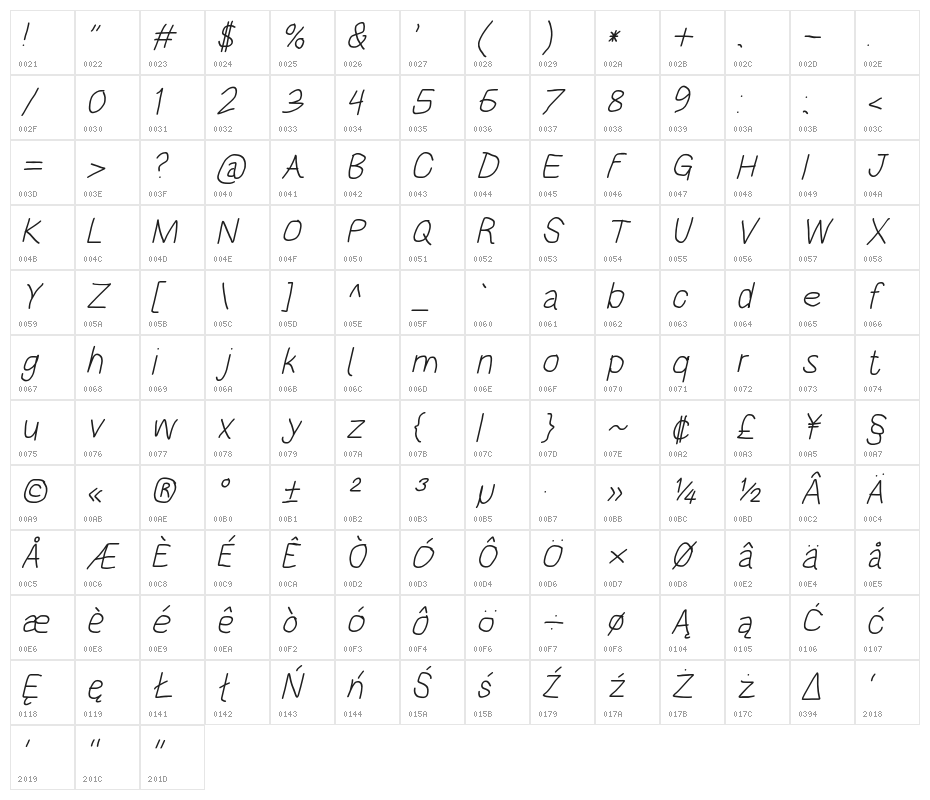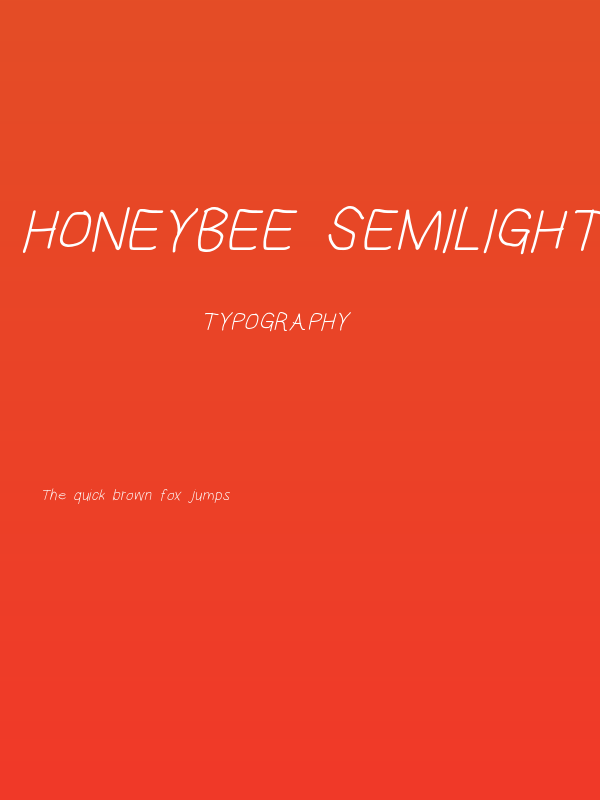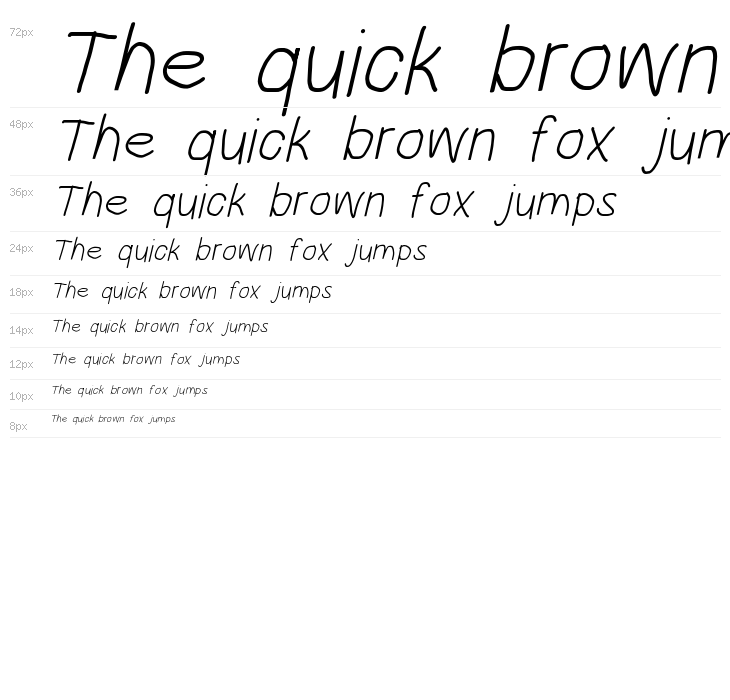
HoneyBee Semilight Italic Font
HoneyBee Semilight Italic Description
This font features a playful and informal style, characterized by its handwritten appearance. The letters are slightly slanted, giving it an italicized look, and the strokes are consistent in weight, maintaining a semi-light feel. The characters are well-spaced, providing a clear and readable text flow. Its casual and friendly design makes it suitable for projects that require a personal touch, such as invitations, greeting cards, or informal branding. The font includes a full set of uppercase and lowercase letters, numbers, and a variety of special characters, ensuring versatility in its application.
| Use Case | Headlines, Informal text, Personal projects |
| Proposed Projects | Ideal for invitations, greeting cards, informal branding, and personal projects. |